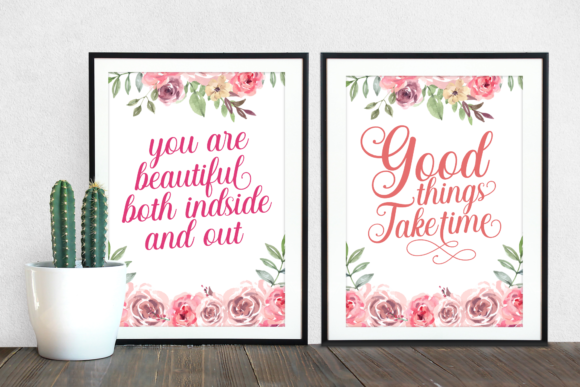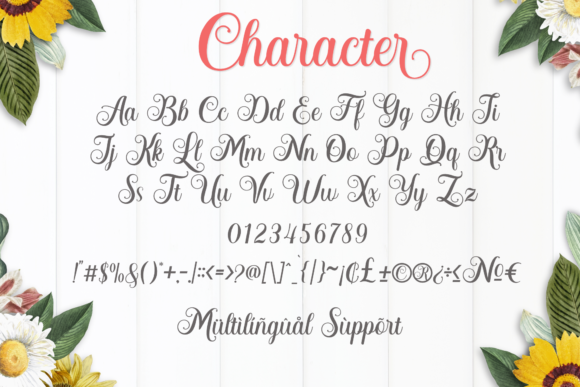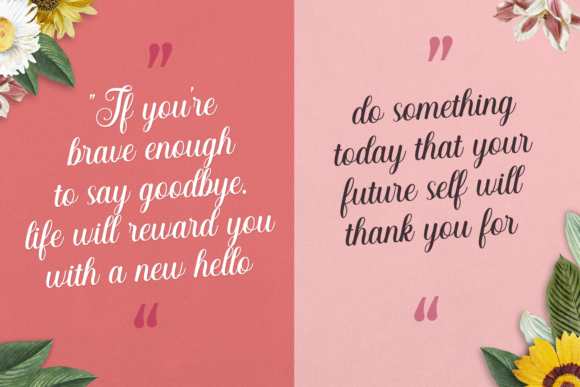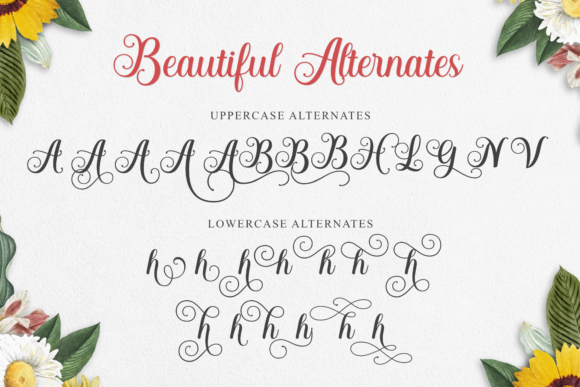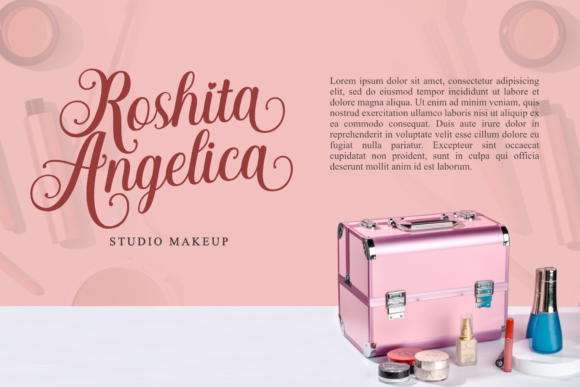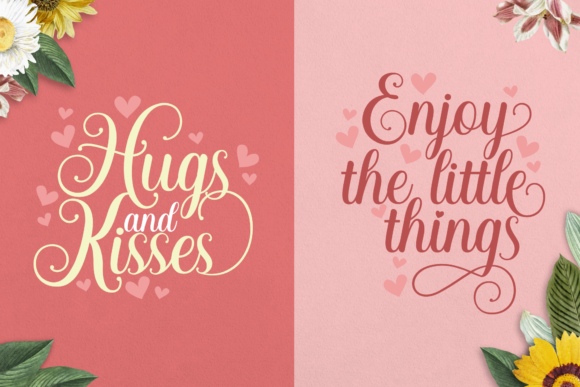
Hesthia Austine Font
About Hesthia Austine Font
Hesthia Austine is a stunning and modern calligraphy font that exudes elegance and charm. With its gentle and graceful letterforms, this font adds a touch of beauty and sophistication to any design project.
The flowing and intricate strokes of Hesthia Austine give it a sense of delicacy and grace. Each letter is carefully crafted to create a harmonious and balanced look, making it a perfect choice for wedding invitations, elegant branding, romantic quotes, and other projects that require a touch of romance and refinement.
One of the standout features of Hesthia Austine is its versatility. It can adapt to a wide range of design ideas, from feminine and floral themes to minimalist and modern aesthetics. Whether you’re creating invitations for a special occasion, designing a logo for a high-end brand, or adding a decorative touch to your social media posts, Hesthia Austine will bring a joyful and romantic feel to your projects.
The inclusion of PUA (Private Use Area) encoding ensures that you have easy access to all the additional glyphs and swashes available in the font. This allows you to further customize and personalize your designs, adding unique flourishes and decorative elements to make them truly stand out.
Whether you’re a professional designer or a DIY enthusiast, Hesthia Austine is a valuable asset in your font library. Its versatility, beauty, and accessibility make it a go-to choice for various projects where you want to create an atmosphere of elegance, romance, and joy.
In summary, Hesthia Austine is a wonderful and modern calligraphy font that brings a touch of beauty and sophistication to your designs. Its gentle and romantic style makes it suitable for a wide range of projects, and the inclusion of PUA encoding ensures easy access to additional glyphs and swashes. Let Hesthia Austine add a joyful and romantic touch to your next design endeavor!